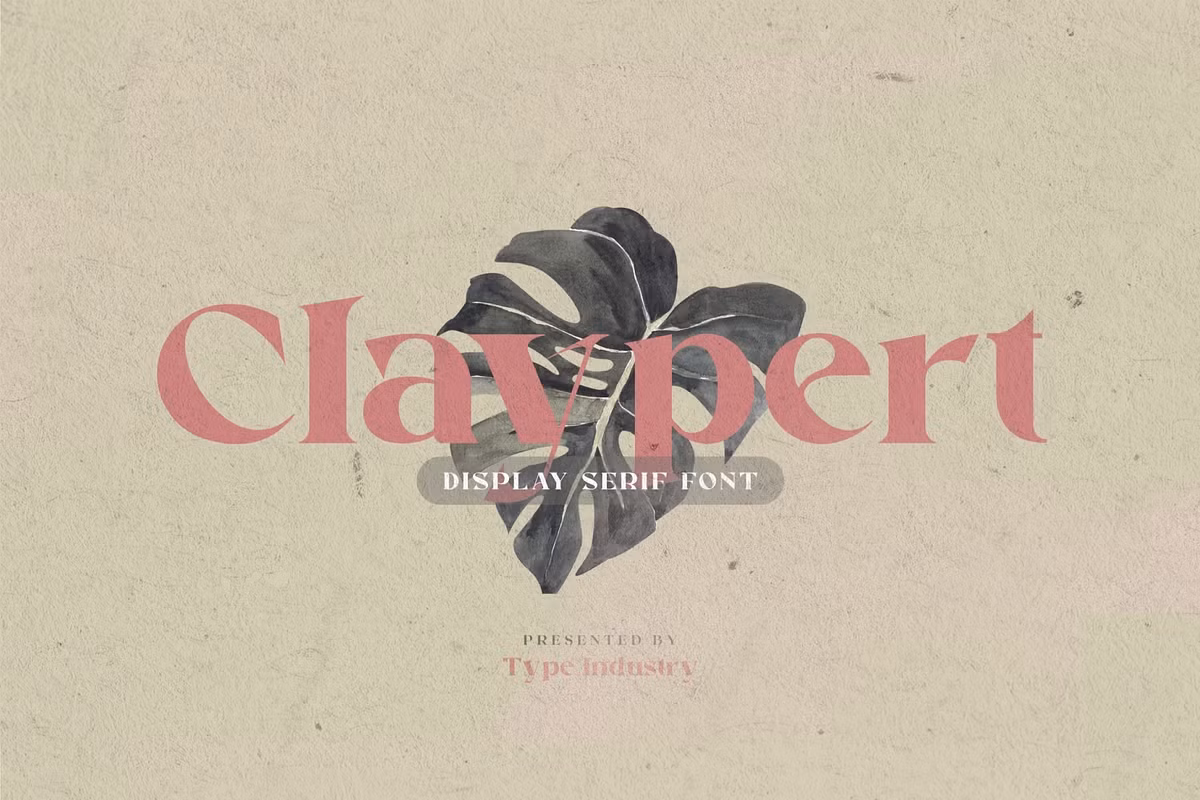
Claypert Display Logo Font Free Download is a bold and stylish typeface crafted specifically for logos, branding, and standout headlines. With its strong shapes, modern curves, and artistic flair, Claypert is ideal for fashion labels, product packaging, posters, and any design project that demands a unique, high-impact look.
Claypert Display Logo Font Free Download offers a perfect blend of creativity and professionalism, making it a go-to choice for designers who want to make a lasting impression. Whether you’re working on a luxury brand identity or an eye-catching advertisement, this font delivers the bold sophistication your work deserves. Download it today and give your designs a signature look with Claypert.